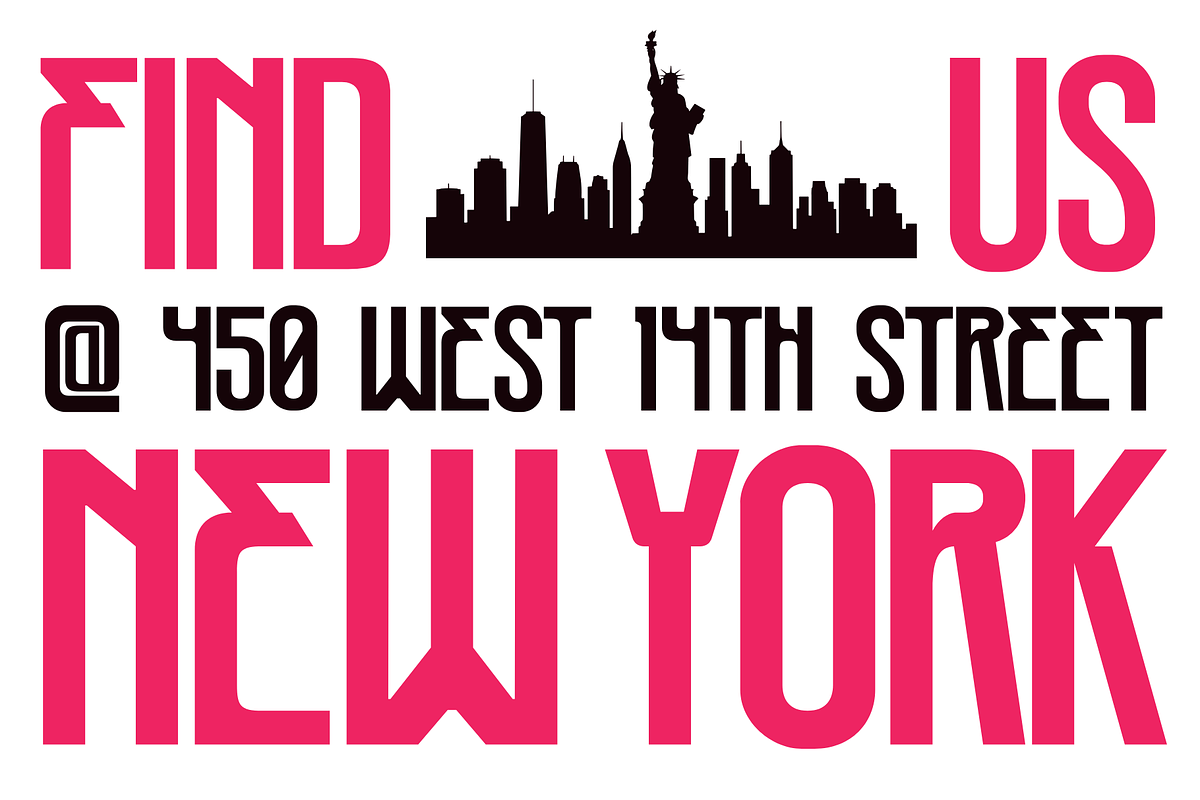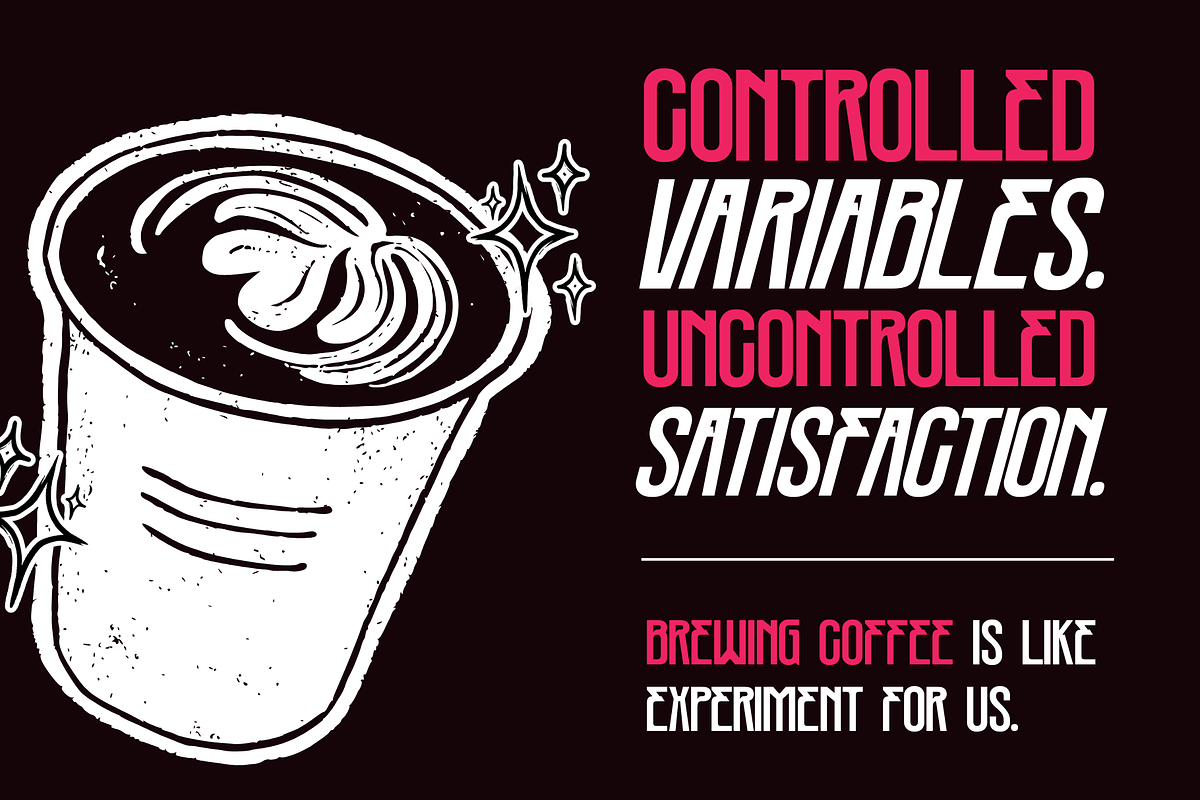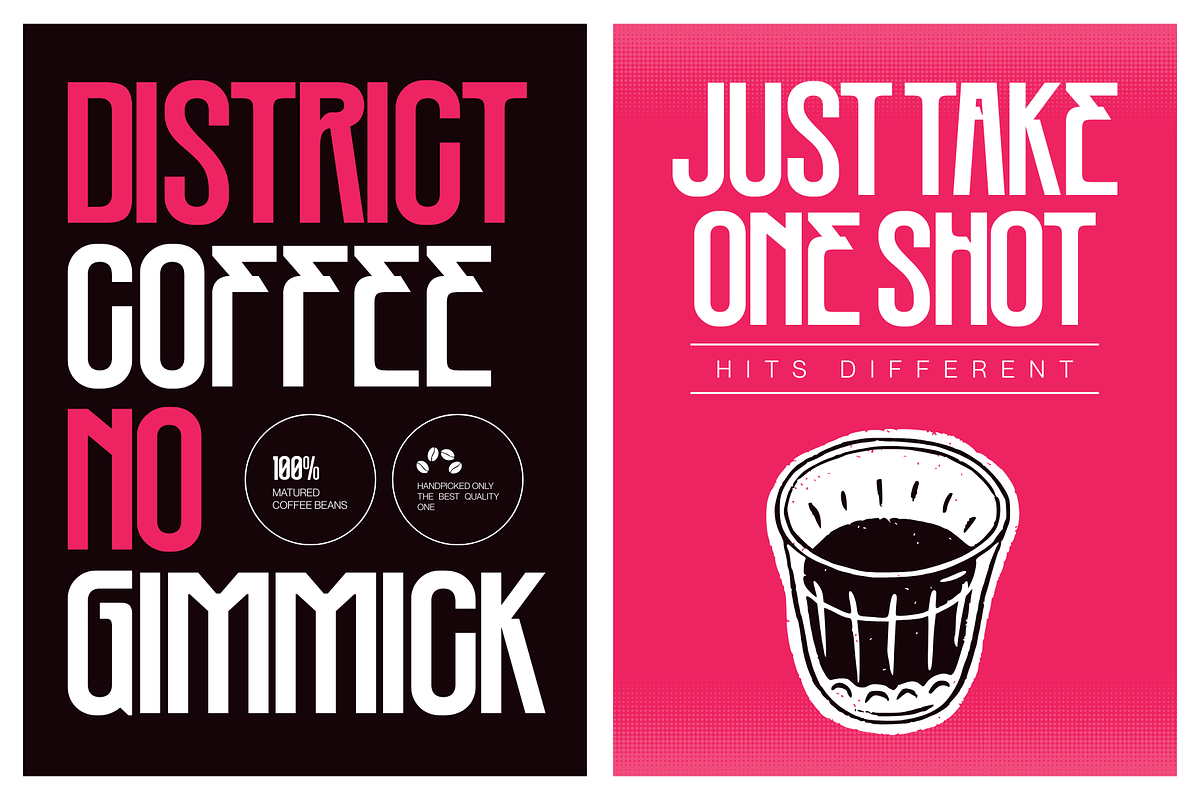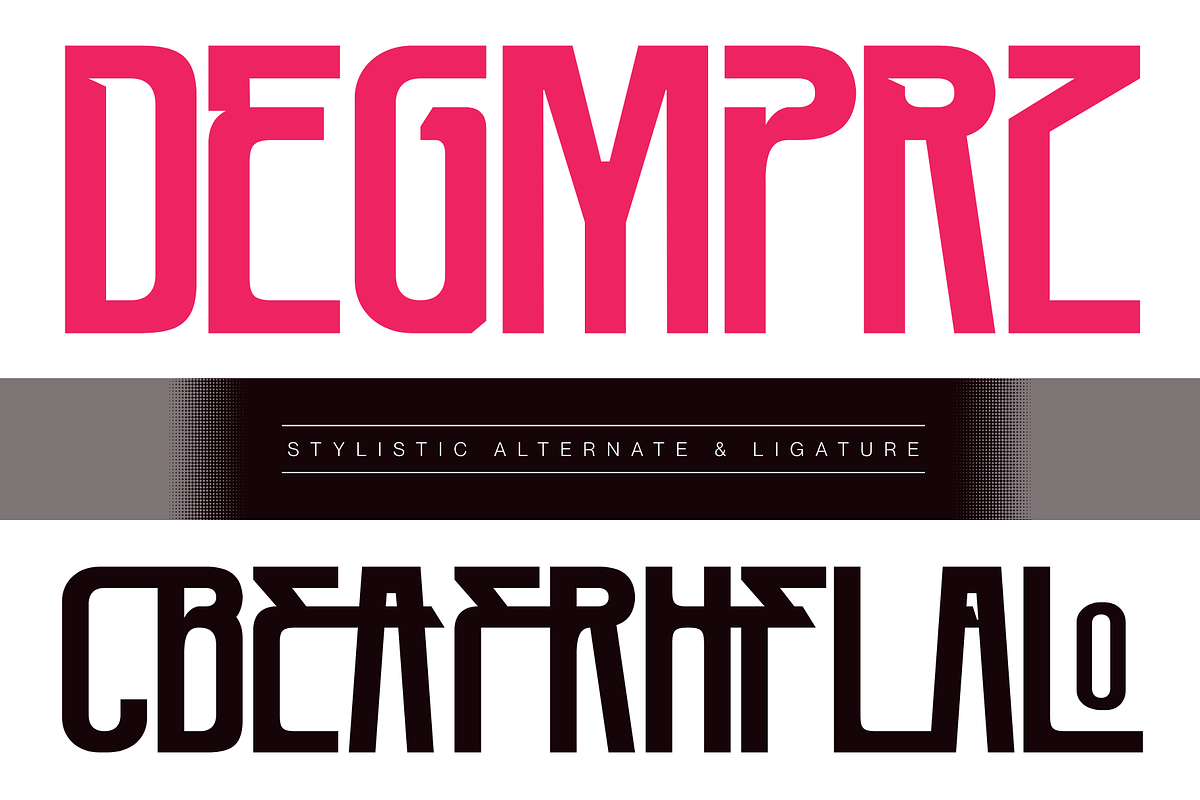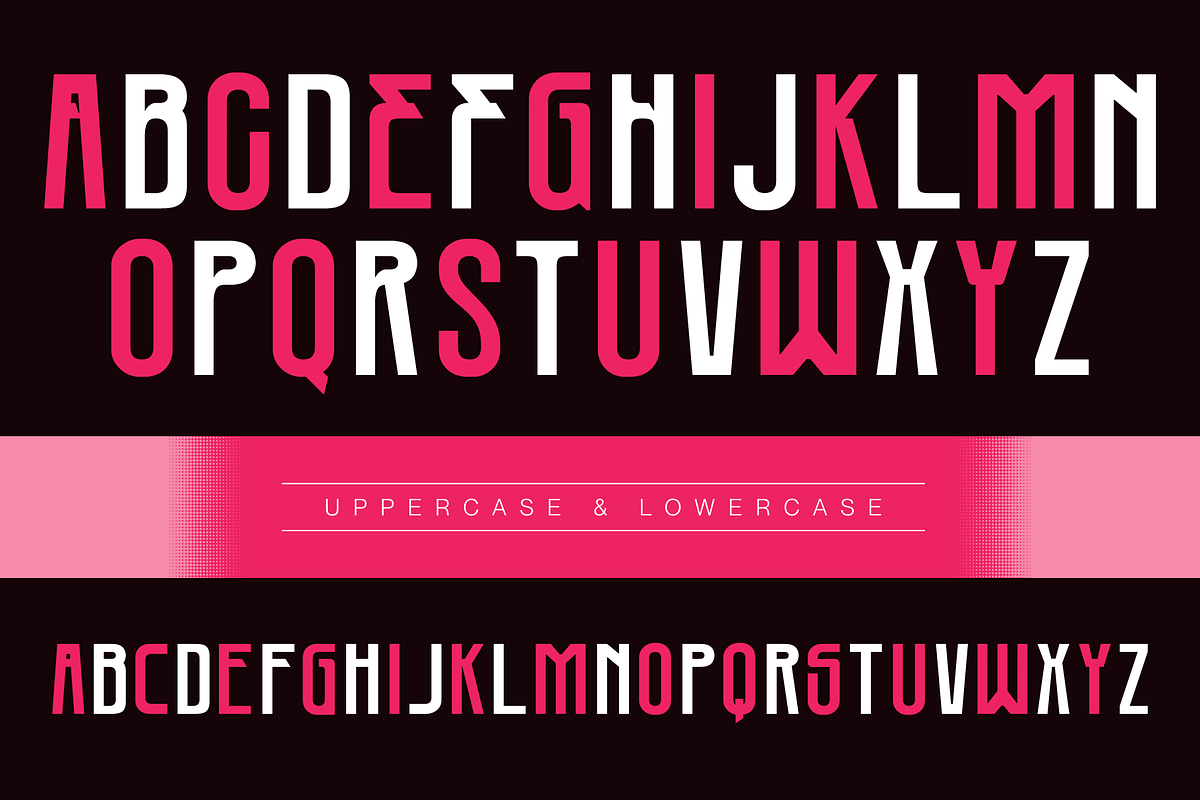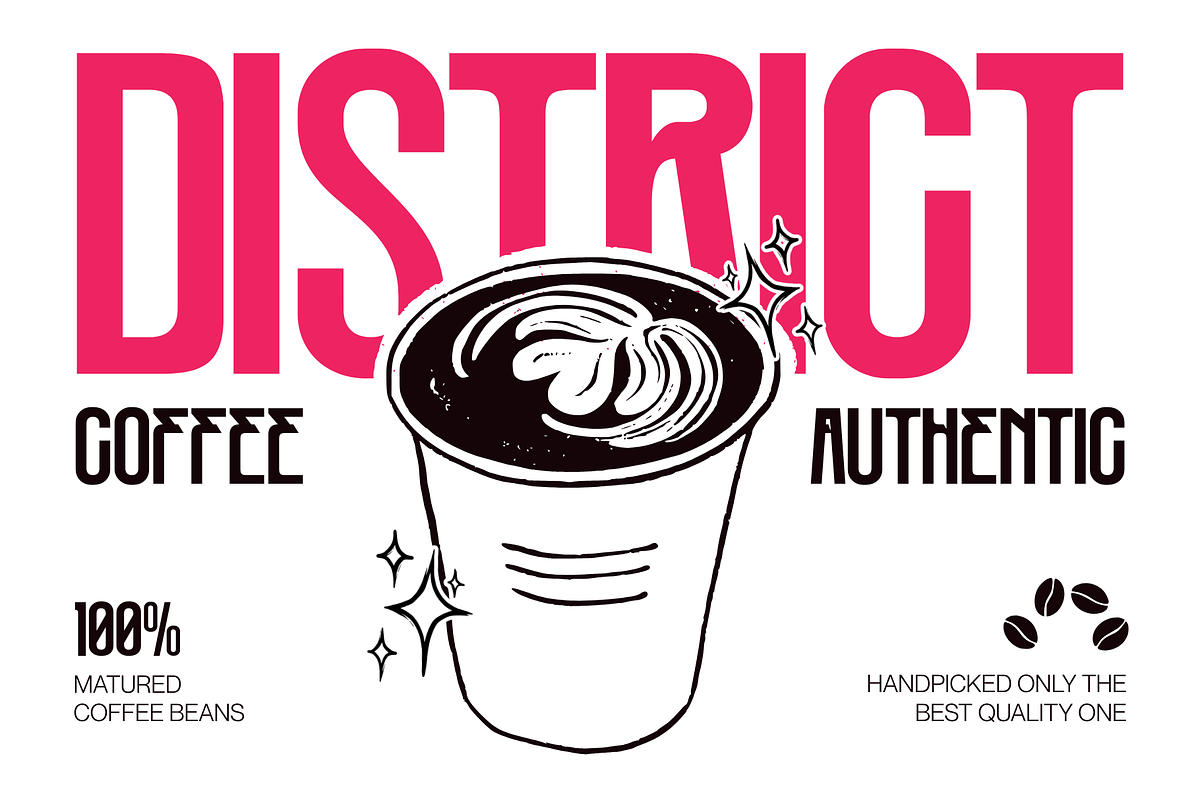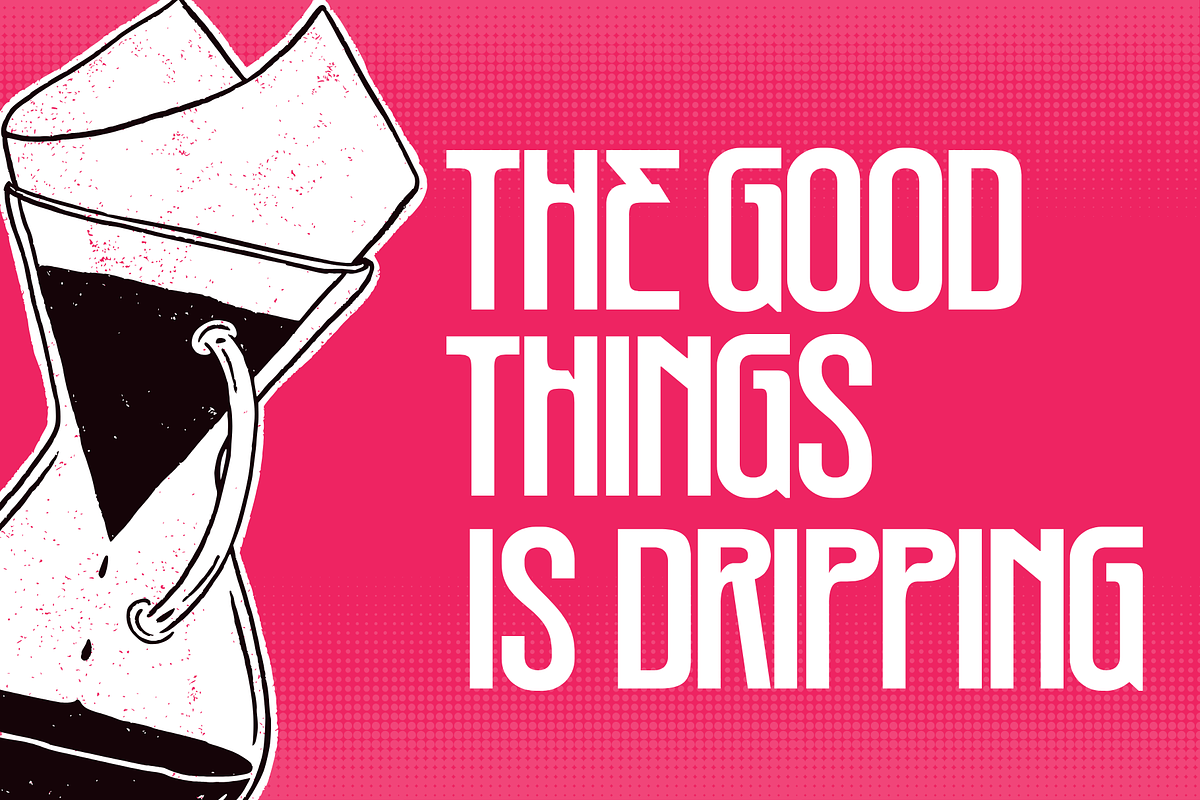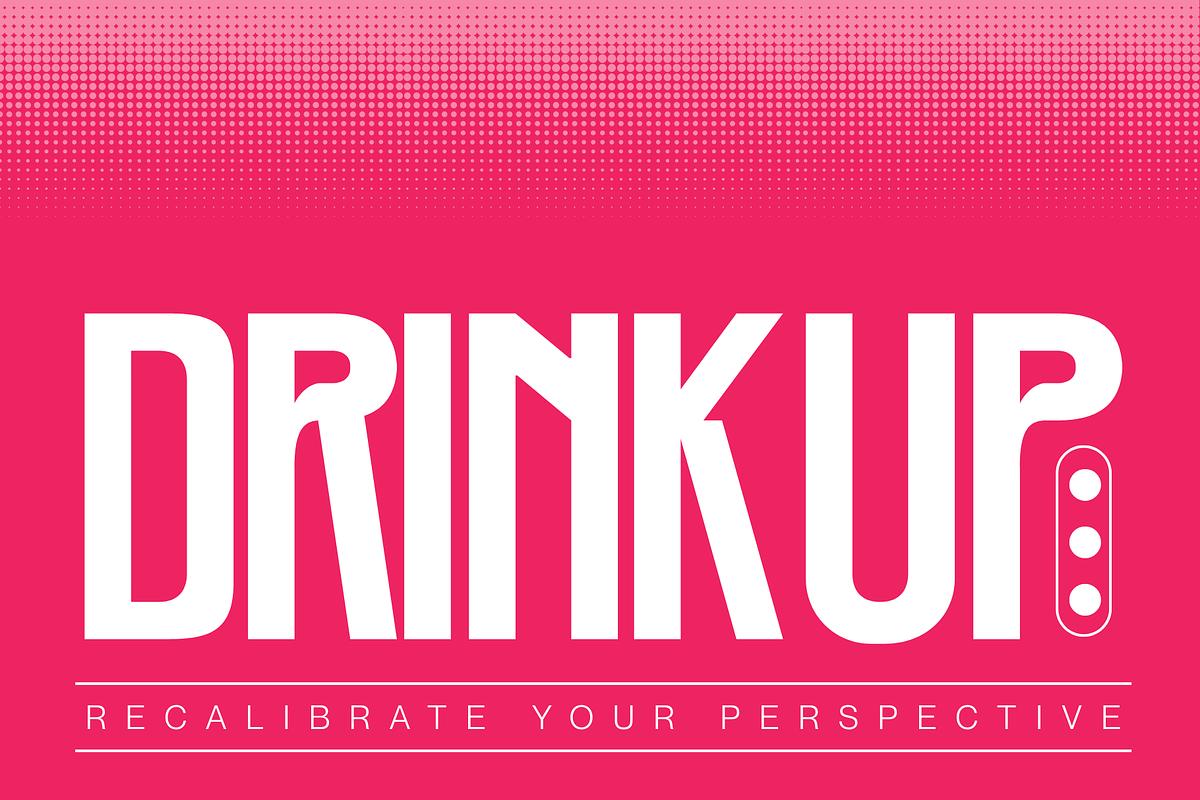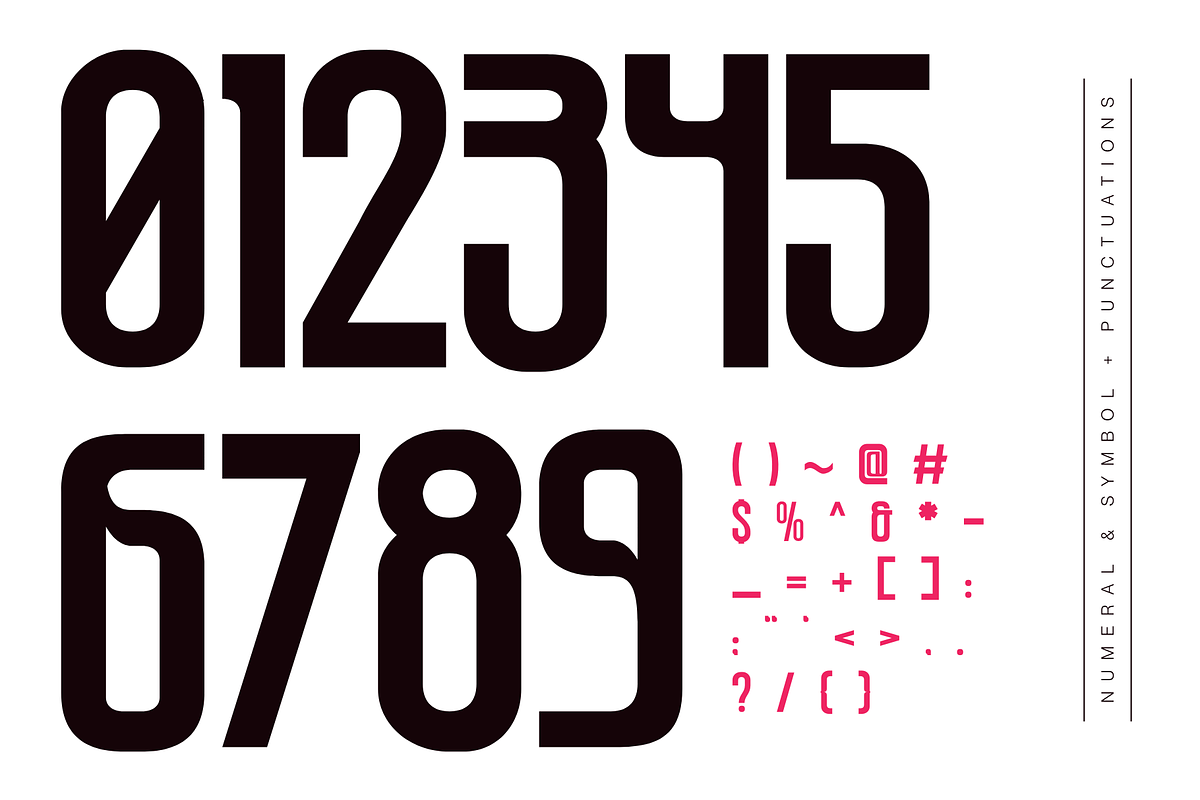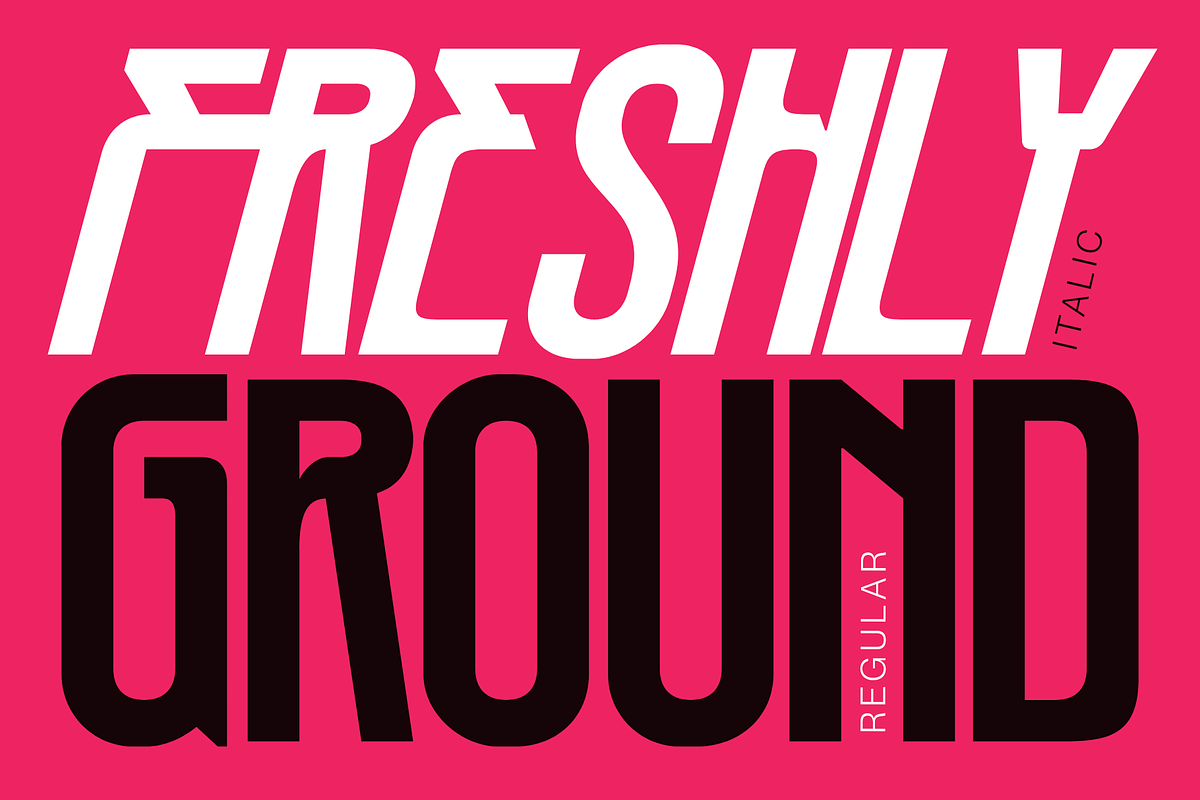
Mearu Food - Branding Logo Font
Mearu Food is a bold and playful display sans font crafted especially for food promotions and culinary branding. Available in both Regular and Italic styles, it delivers a fresh, appetizing personality that instantly grabs attention. The smooth curves and clean strokes make it perfect for logos, menu boards, posters, packaging, and social media advertising. Its modern yet friendly character enhances visual appeal, making every design feel delicious, vibrant, and irresistibly eye-catching.